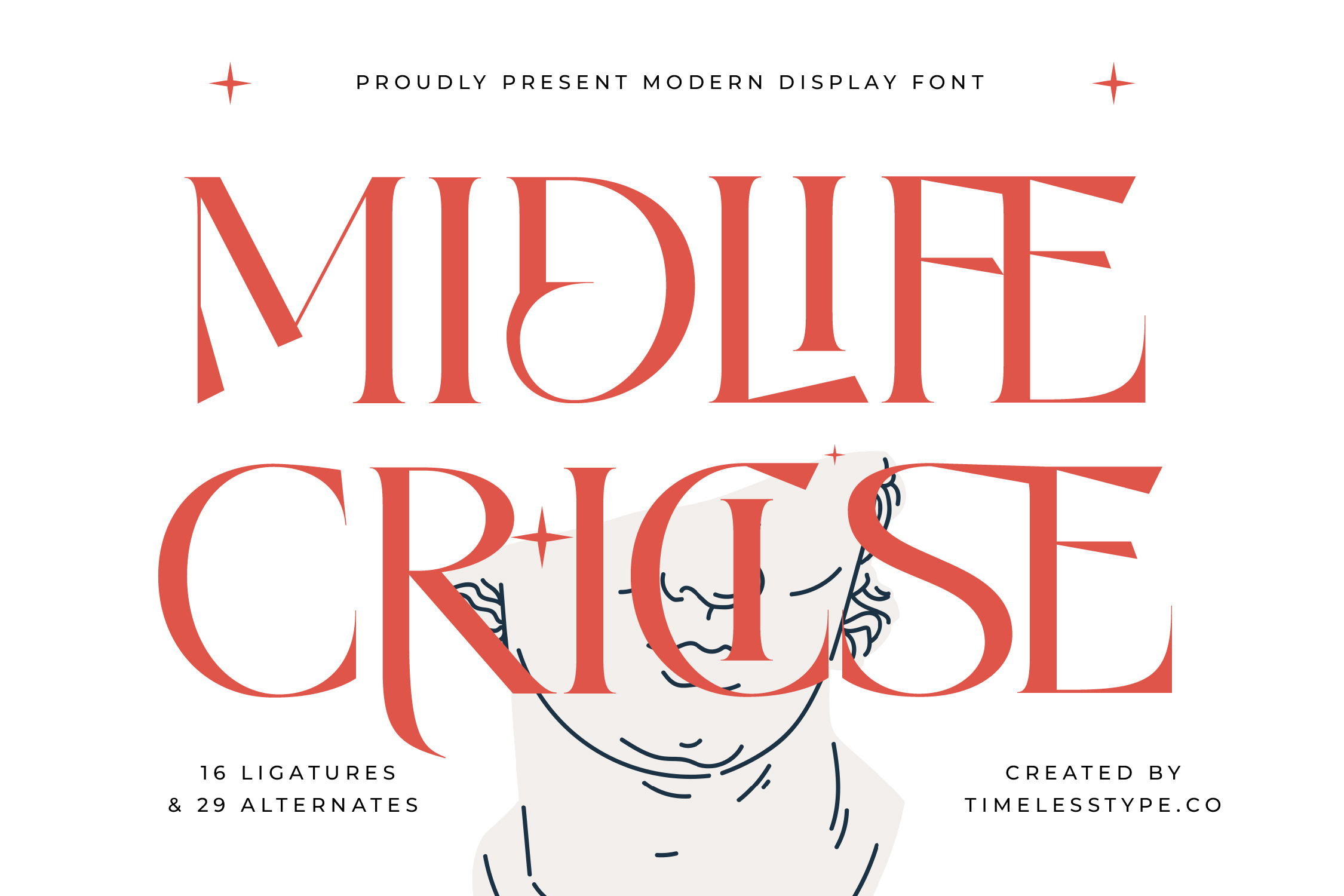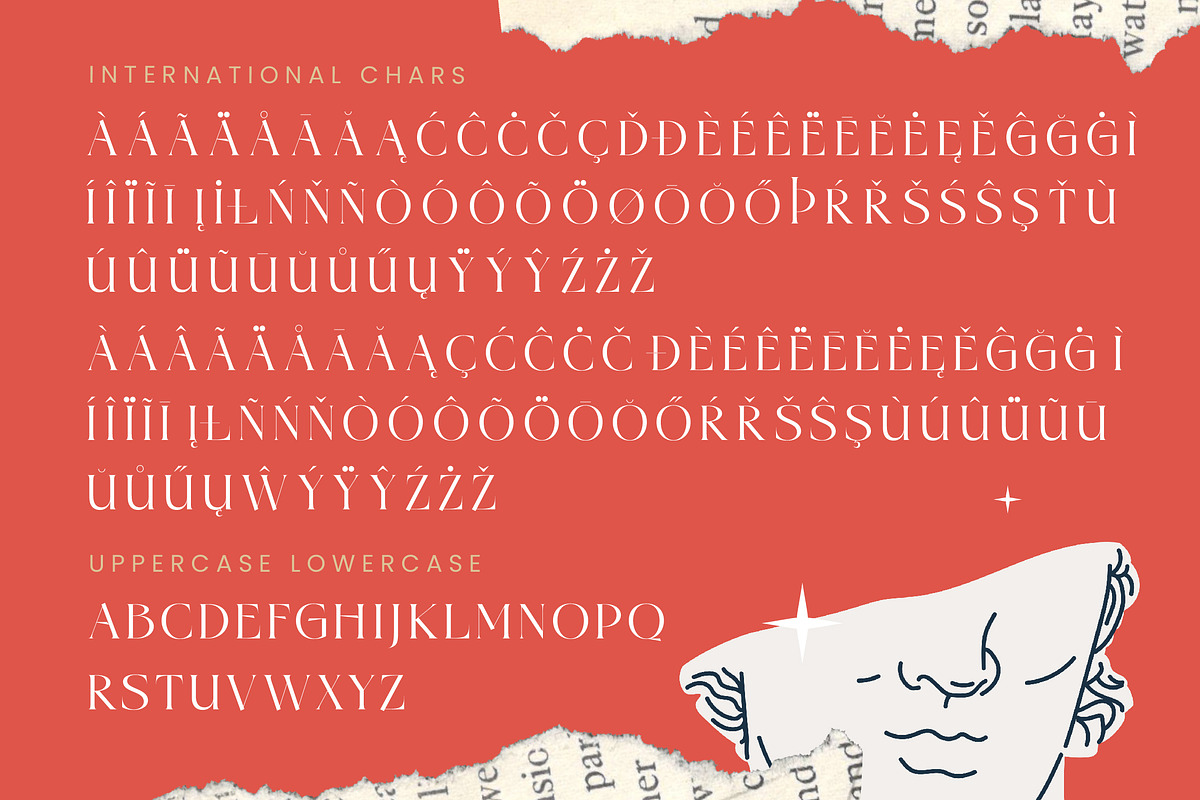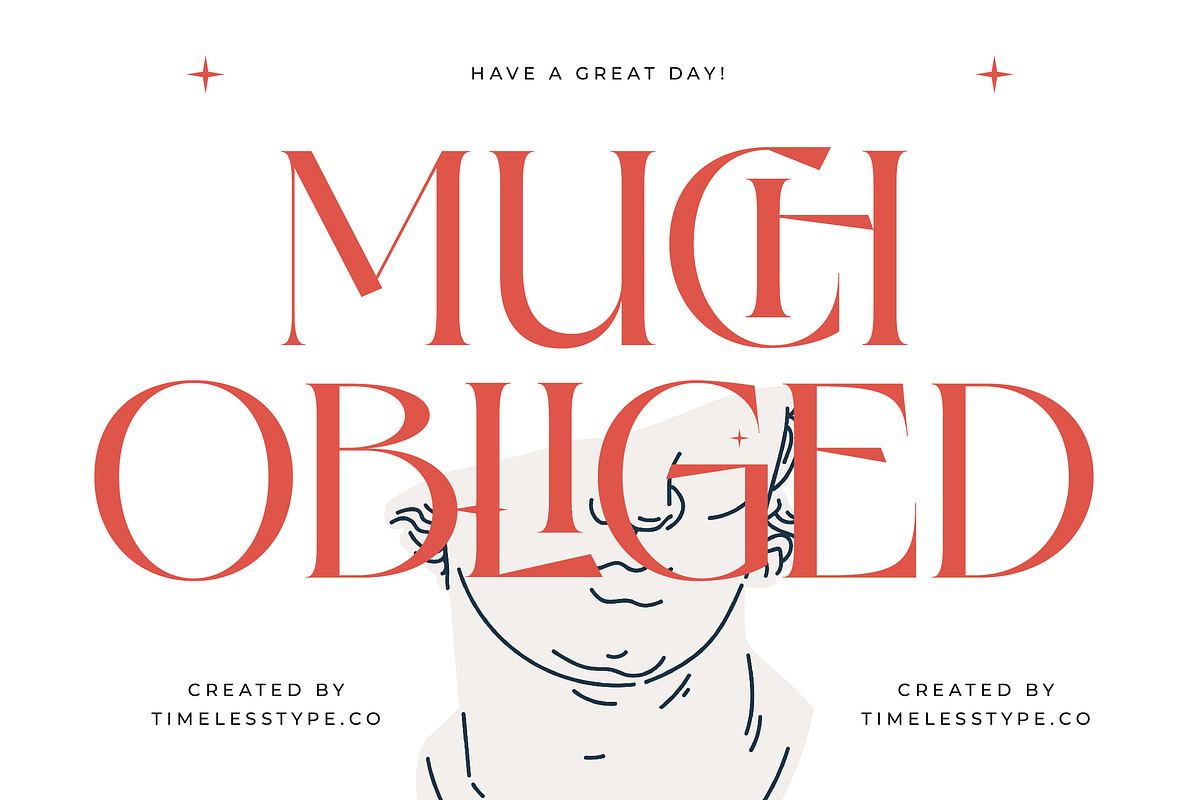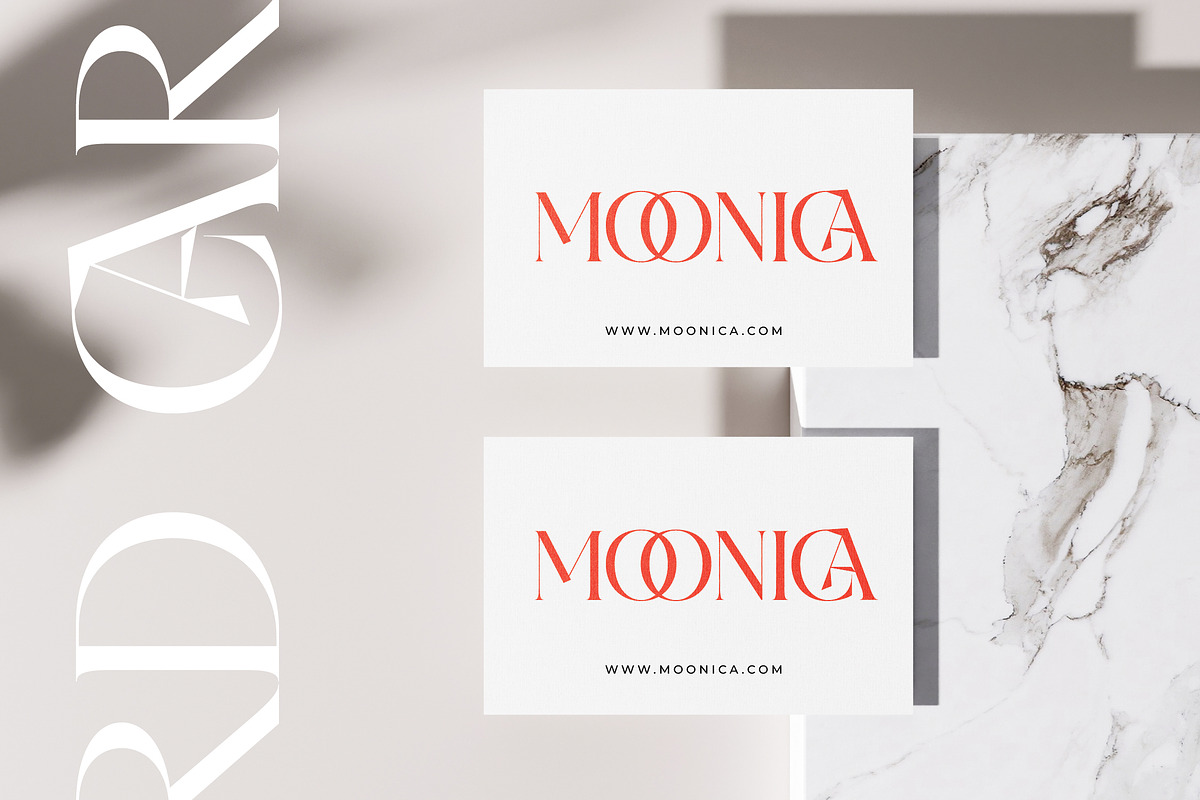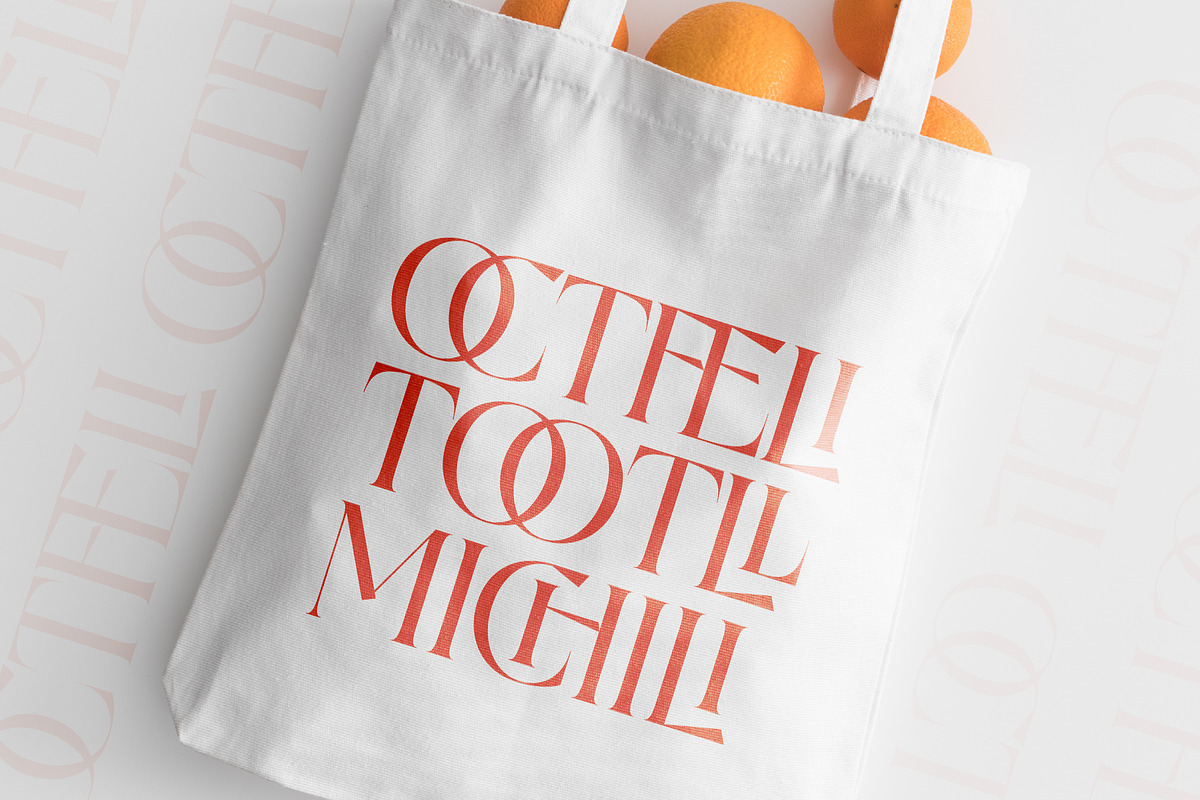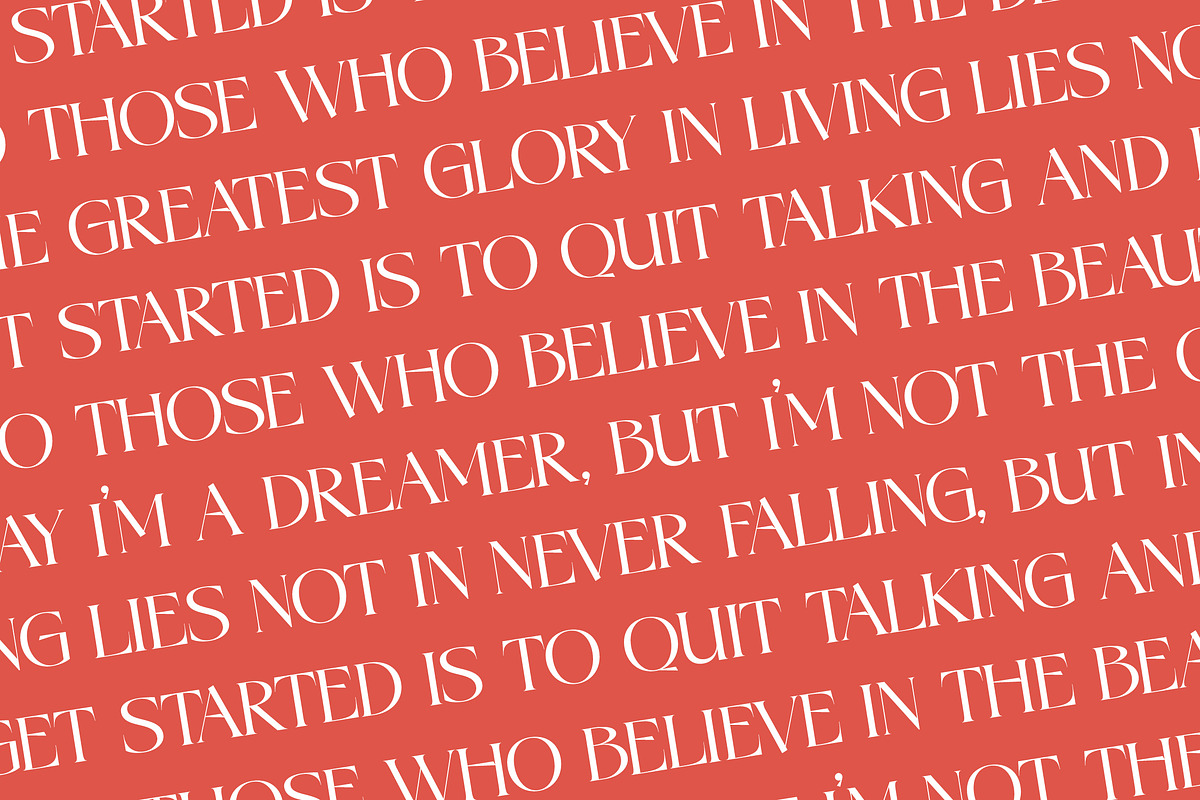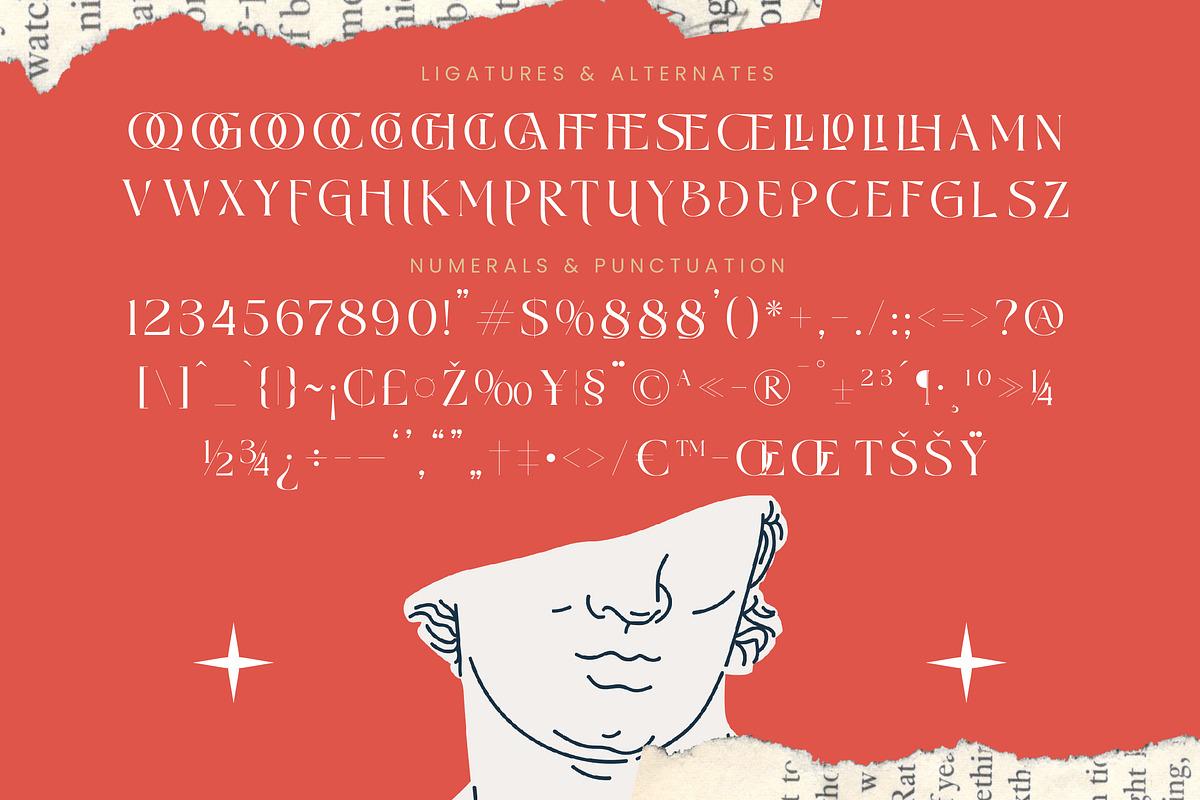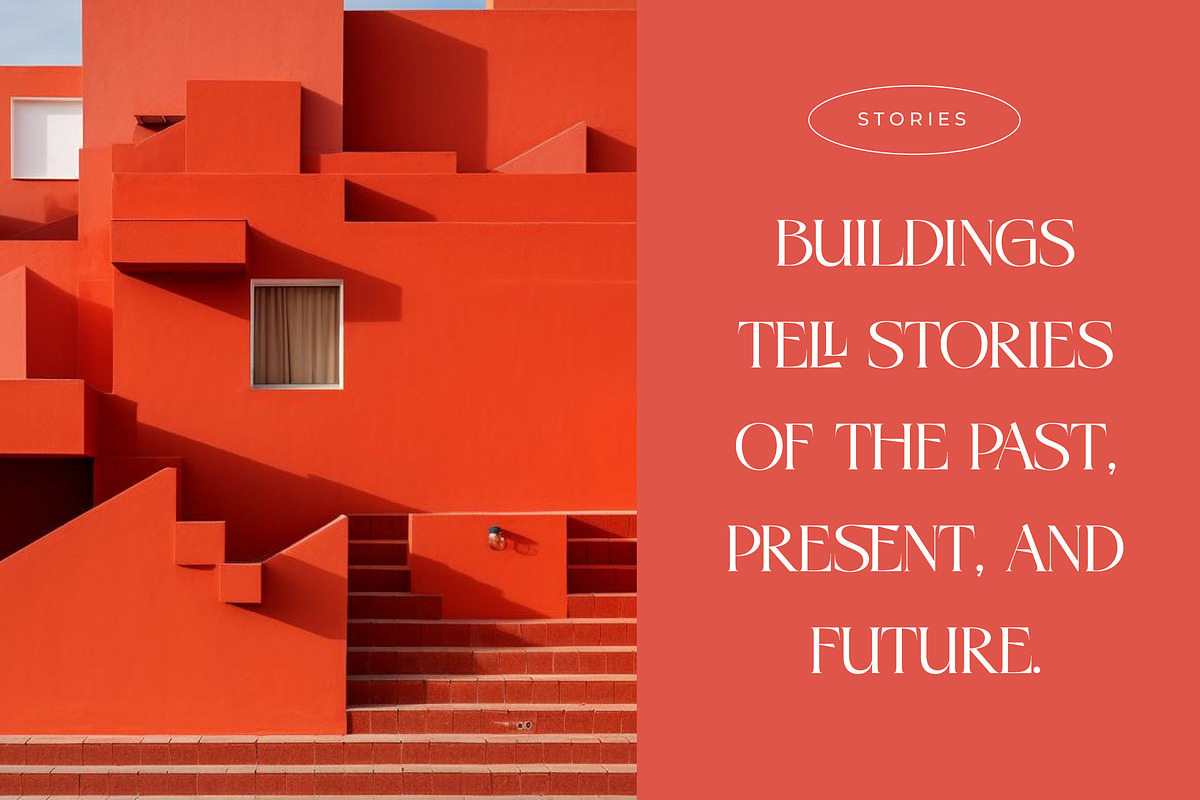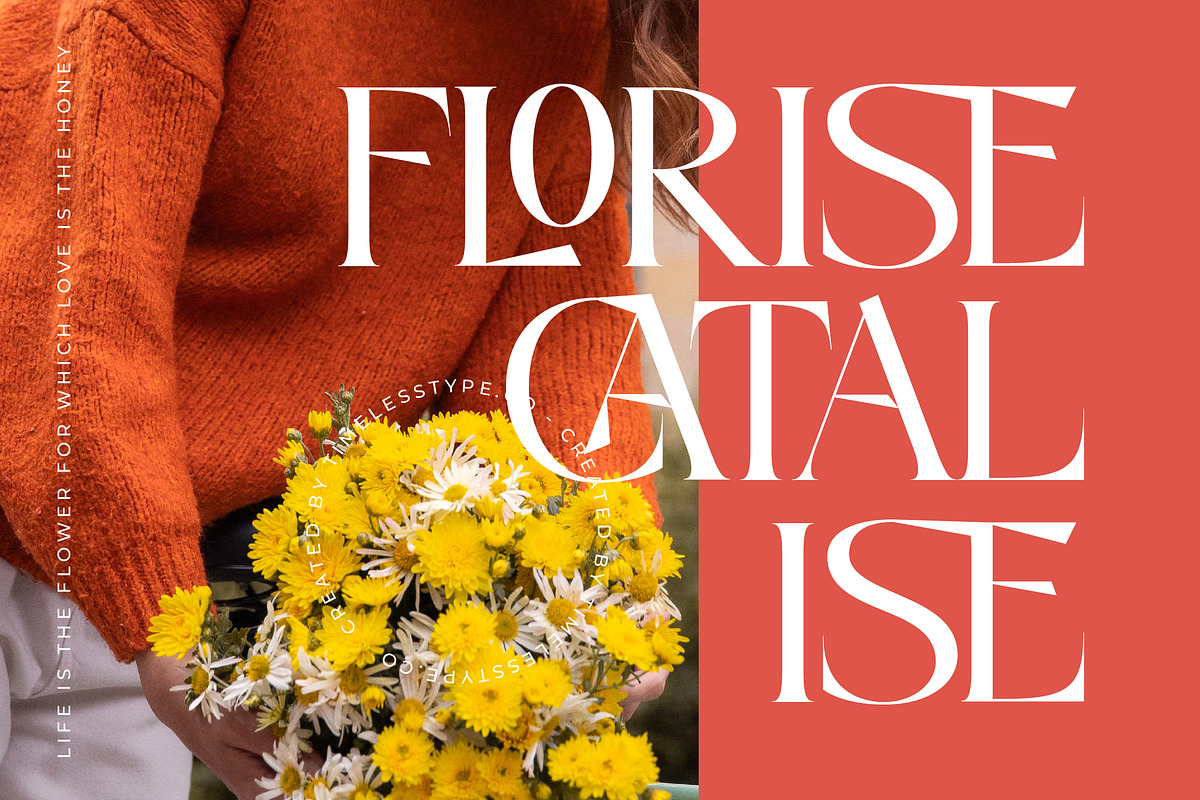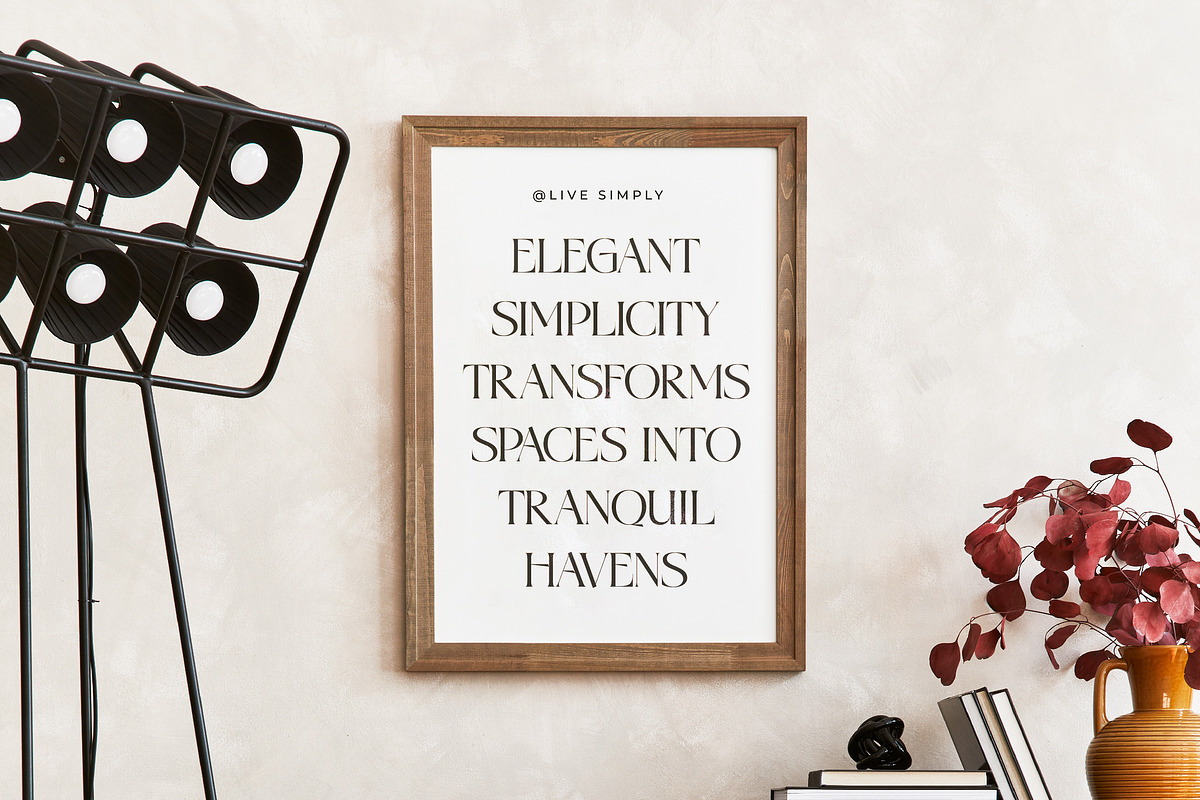
Midlife Cricise Modern Serif Font
Embrace a sophisticated artistic journey with Midlife Cricise, a font that captures the essence of refined evolution. It speaks to the soul of design with a poetic grace that instantly elevates any visual narrative.
Inspired by the timeless beauty of classical sculptures and the bold spirit of mid-century editorial layouts, this typeface bridges the gap between antiquity and the avant-garde. It channels a mood of contemplative luxury and daring self-expression.
This modern serif display balances sharp terminals with flowing curves to create a high-contrast serif that demands attention. Its luxury typography style offers a unique editorial font feel that provides an unforgettable branding impact for sophisticated projects.
Staying ahead of the modern serif trend, this typeface aligns perfectly with the rise of editorial display fonts in current digital spaces. It represents the pinnacle of character-driven typography that caters to the contemporary crave for distinction.
This versatile typeface is the ideal choice for high-end logo design, cohesive branding identities, and premium editorial layouts. It adds a touch of class to luxury packaging, romantic wedding stationery, and fast-paced fashion lookbooks.
Unlock creative potential with extensive ligatures and unique alternates that allow for custom letter combinations. Complete with swashes, multilingual support, and international characters, this collection provides everything needed for world-class design execution.
- Ligature 16 Alternate 29 & Swashes